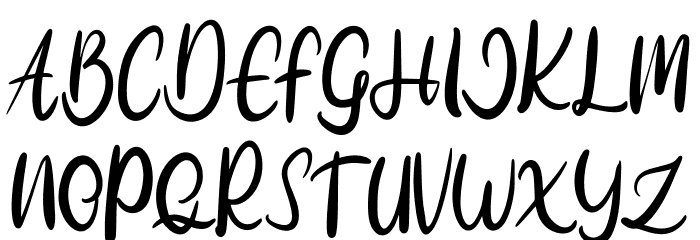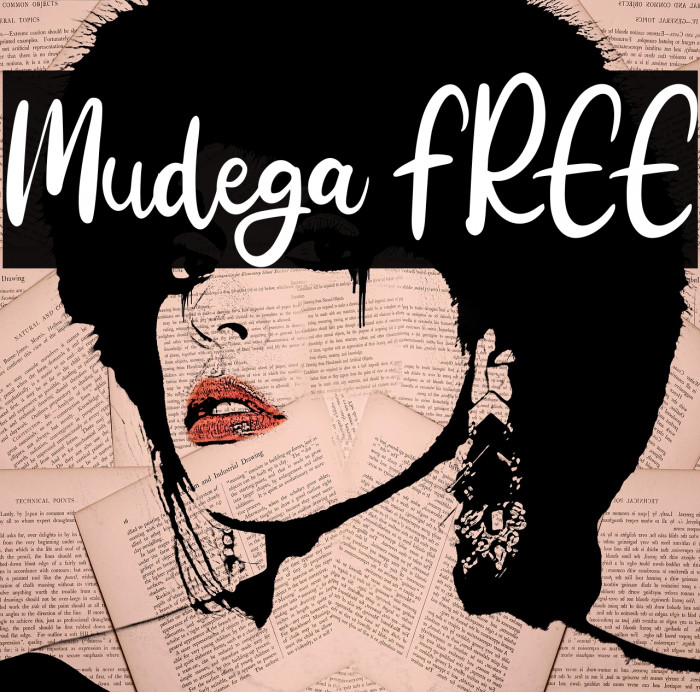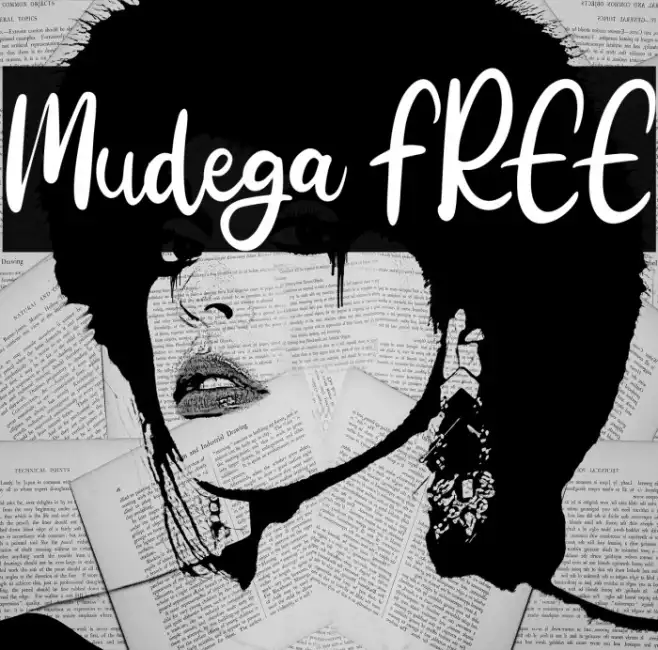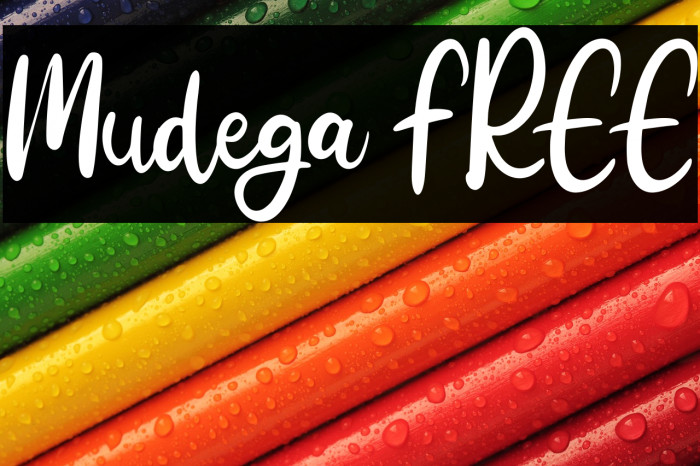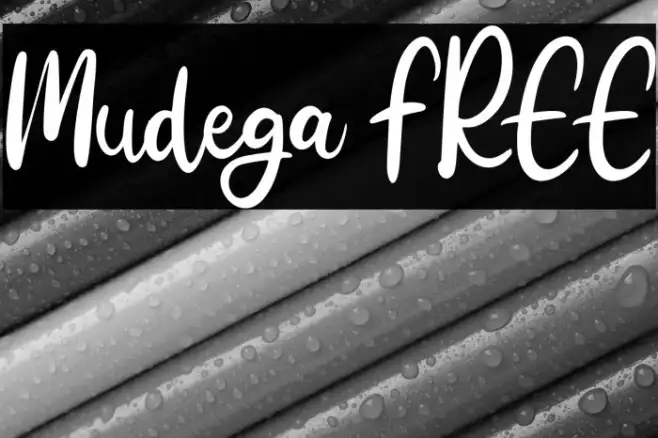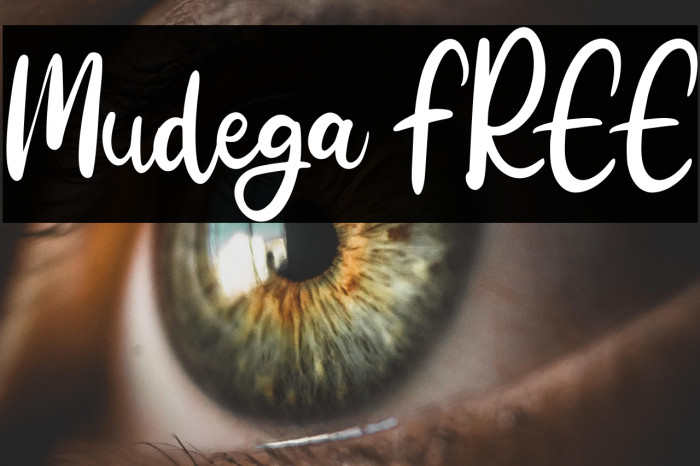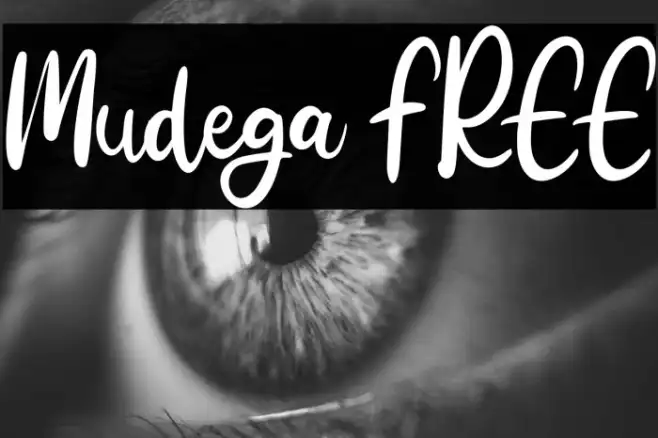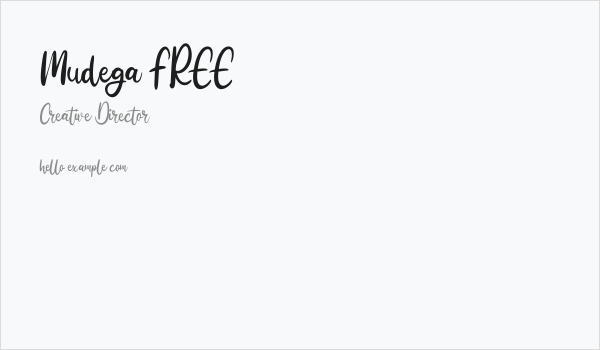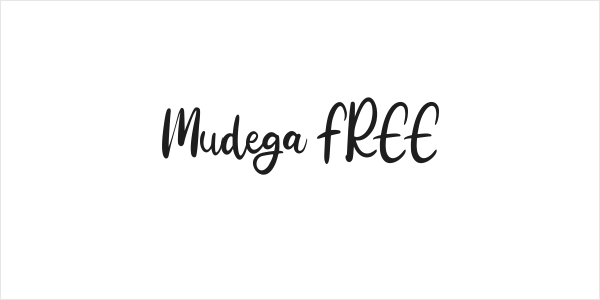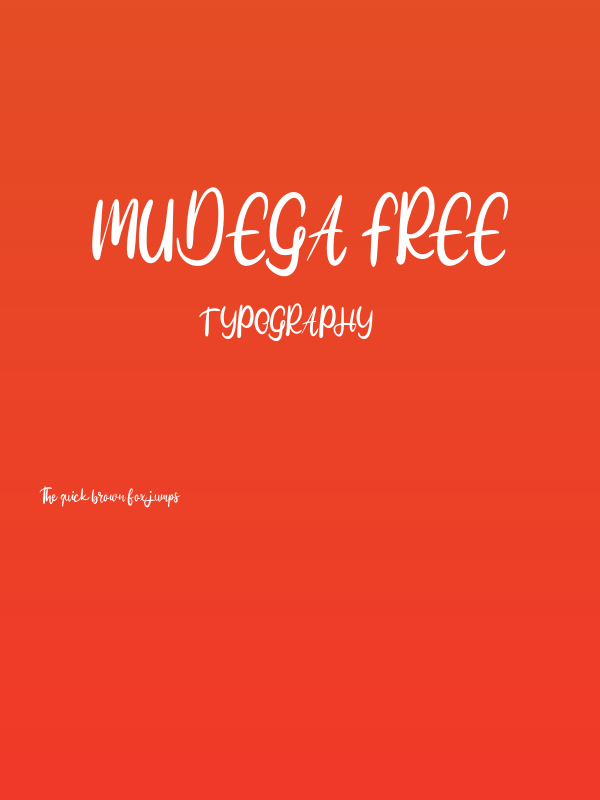
Mudega FREE Font
Mudega FREE Description
This font features a lively and expressive handwritten style, characterized by its fluid and dynamic strokes. The letters are connected in a cursive manner, giving it a personal and informal feel. The uppercase letters are bold and slightly slanted, while the lowercase letters maintain a consistent flow with occasional loops and flourishes. The overall appearance is playful yet elegant, making it suitable for creative and artistic projects. The font's unique style is enhanced by its medium contrast in stroke thickness, providing a balanced visual appeal.
| Proposed Projects | Ideal for greeting cards, invitations, branding, and creative design projects that require a personal touch. |